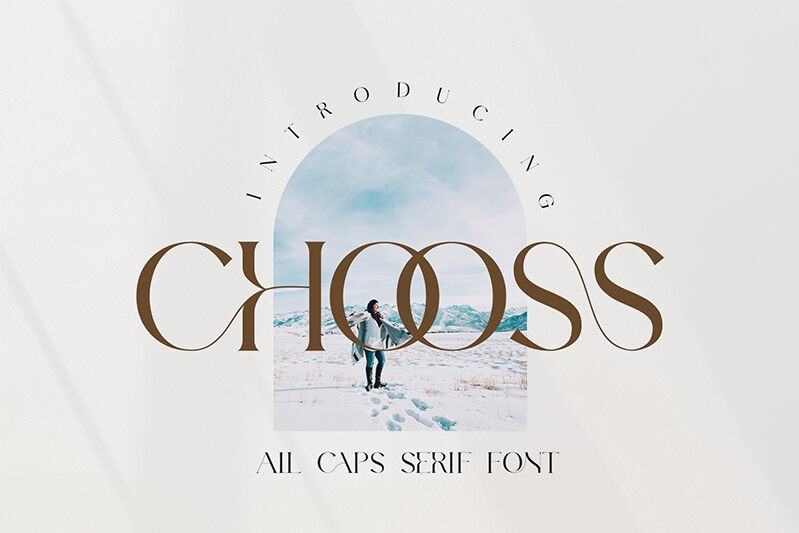
Chooss font family by Slide Shoot Type is a free serif set with graceful and modern characters. The font is an excellent choice for sophistication, elegance, and distinct style. With all of these traits and qualities combined, and use intent aside, Chooss will deliver superior results on any design in which it is used.
Corporations, designers, artists, bloggers, and all sorts of businesses and individuals will particularly enjoy taking this decorative type on a test drive for logos, packaging, posters, promotional graphics, social media, etc.